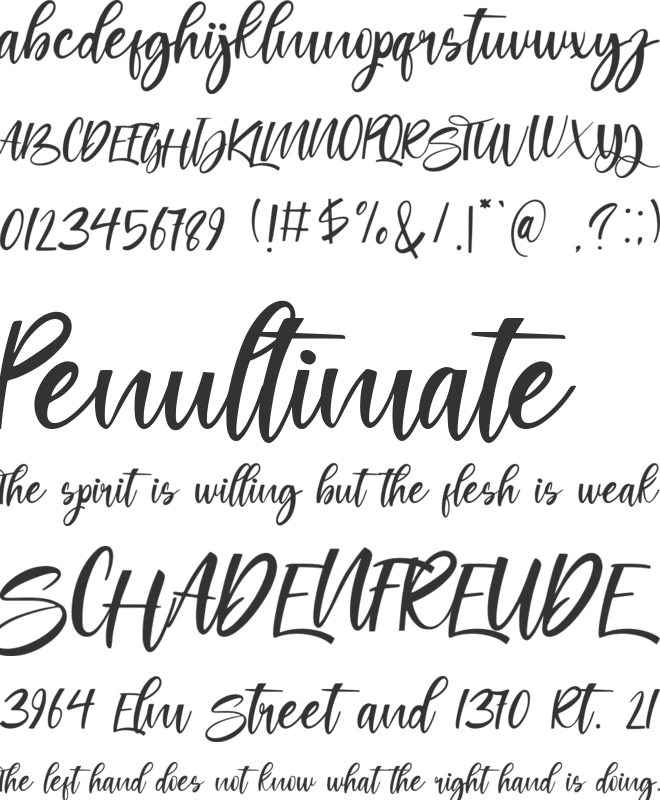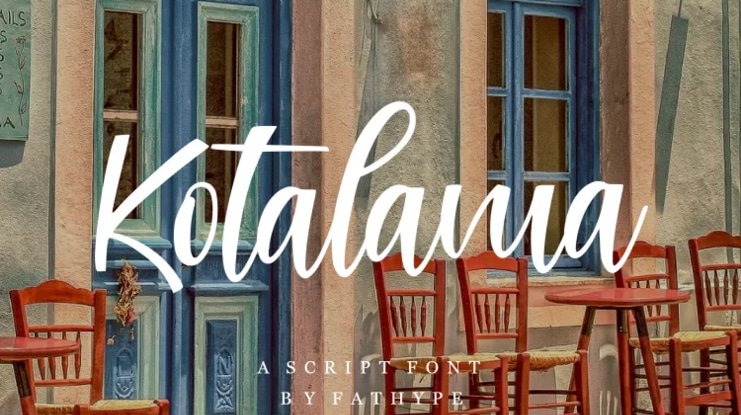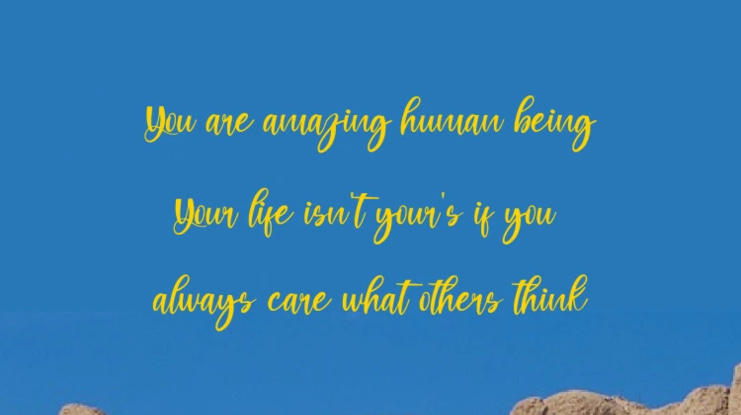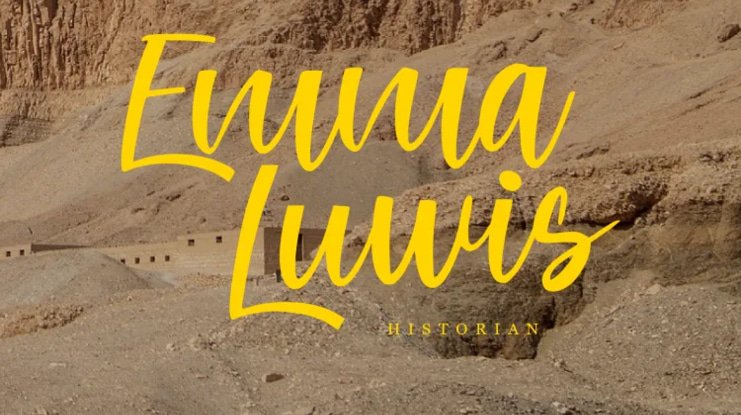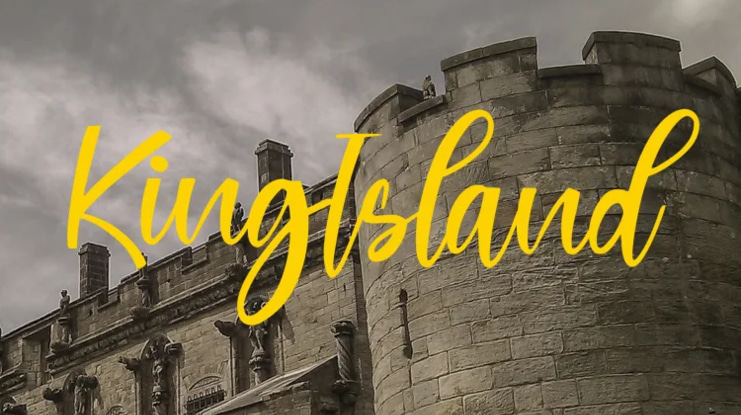
Koatalama Font
Kotalama is the latest modern Script font made as natural as possible, Kotalama script font is made perfect to apply to brand logos, invitations, labels, magazine titles, books, greeting cards, wedding cards, packaging, fashion, makeup, stationery, novels, labels, or any kind of advertising purposes.